Learn what ascender typography means, how ascenders and descenders affect readability and type selection, and why these letterform details matter more than you think.
Look at the word “highlight.” Notice how the “h,” “i,” “g,” and “l” reach above the other letters? Those upward strokes are ascenders, and they do more work in ascender typography than most people realize. They give words their silhouette, help us recognize text at a glance, and quietly influence decisions about line spacing, font pairing, and type size. If you’ve ever wondered why two fonts at the same size look completely different in a layout, ascenders are often a big part of the answer.
This post breaks down what ascenders are, how they relate to descenders, and why both matter for anyone working with type.
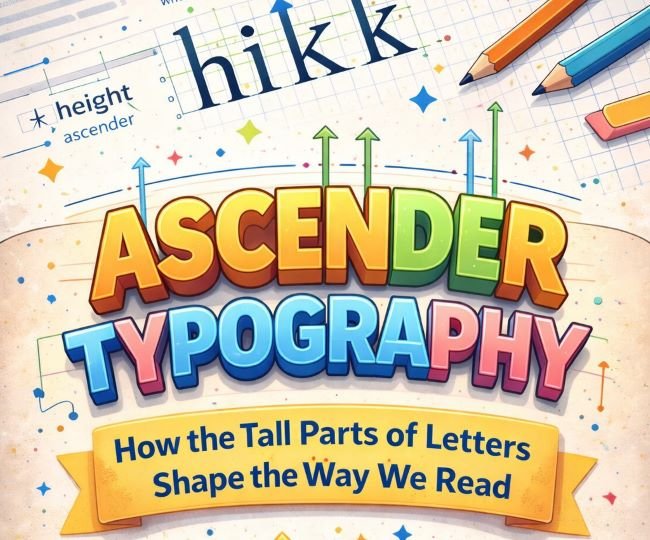
What Are Ascenders in Typography?
An ascender is the part of a lowercase letter that extends above the x-height. The x-height is the height of a typical lowercase letter with no extending strokes, using the letter “x” as the reference point since it sits squarely within the main body of the text.
Letters with ascenders include: b, d, f, h, i, j, k, l, and t. The strokes on these letters that reach upward past the x-height are the ascenders. In some typefaces, these strokes reach all the way to the cap height (the height of uppercase letters). In others, they go even higher.
That last point is worth pausing on. In many classic text typefaces, the ascenders on lowercase letters are actually taller than the capital letters. This is intentional. Designers do it because it creates a more natural, less mechanical rhythm in running text. When ascenders and capitals are the same height, the text can feel rigid and uniform. When ascenders are slightly taller, the text has more organic movement.
What Are Descenders in Typography?
Descenders are the counterpart to ascenders. Where ascenders reach up, descenders drop below the baseline. The baseline is the invisible line that letters sit on.
Letters with descenders include: g, j, p, q, and y. The strokes that hang below the baseline are the descenders. In some fonts the descenders are long and elegant; in others they’re cropped short to fit tighter line spacing.
Ascenders and descenders together give words their distinctive shapes. When you read, you don’t actually process each letter individually. You recognize the overall shape of a word as a unit. Ascenders and descenders contribute to that shape, which is part of why ALL CAPS text is harder to read in long passages. Capital letters don’t have descenders, and they rarely have ascenders, so the words become uniform rectangles with no distinguishing silhouette.
Ascender Height and X-Height: Why the Ratio Matters
The relationship between the ascender height and the x-height is one of the most important characteristics of any typeface. Different ratios produce very different reading experiences.
High x-height, short ascenders: The lowercase letters are large relative to the uppercase. This makes the font feel open and legible at small sizes, which is why many screen fonts are designed this way. The trade-off is that the text can feel a little flat or modern, lacking the classical elegance of fonts with taller ascenders.
Low x-height, tall ascenders: The lowercase letters are smaller relative to the line height, and the ascenders stretch significantly. This creates a more graceful, literary feel. Many traditional book typefaces and serif fonts designed for print fall into this category. They can be harder to read at very small sizes but feel authoritative and refined at body text sizes and above.
Balanced ratio: Most workhorse text fonts land somewhere in the middle, with an x-height and ascender height designed to handle a wide range of uses without pushing too far in either direction.
When you’re choosing a font, look at how the ascenders and x-height relate. A quick way to judge this is to set a word like “happening” which contains both ascenders and descenders, and see how the letters interact with each other and with the space around them.
How Ascenders Affect Line Spacing
Ascenders and descenders directly influence how much line spacing (leading) a typeface needs.
A font with very long ascenders and descenders needs more vertical space between lines. If the descenders of one line come too close to the ascenders of the line below, the text feels cramped and the strokes can visually collide. A font with short ascenders and descenders can sit more tightly without that problem.
This is one reason you can’t just copy a line spacing value from one font and apply it to another. Each typeface has its own proportions, and what works for one will often look wrong on another.
If you’re setting body text in a font with generous ascenders and you notice that your line spacing feels off even at standard values, try increasing the leading slightly. The ascending strokes need room above them to breathe, not just the cap height.
Ascenders and Descenders in Font Pairing
When you pair two fonts, their ascender heights and x-heights need to be considered, not just their visual style.
Two fonts with very different x-heights will look mismatched at the same point size, even if they share a similar aesthetic. One will look large and dominant while the other looks small and secondary. This is sometimes intentional in display pairings, but in body text contexts it usually creates inconsistency.
A useful pairing strategy is to find fonts whose x-heights are similar, then let the ascender differences add visual interest. This gives the pairing coherence at the word level while the different ascender treatments contribute personality.
For example, a serif body font with tall, elegant ascenders can pair well with a sans-serif heading font that has a higher x-height, because the difference in proportions creates contrast between the heading and body roles while both still feel balanced on the page.
If you’re working on a project that calls for a typeface with distinctive ascender character, Lobster is a strong example of a font where the ascenders are a major part of its personality. The sweeping strokes that extend above the x-height give it its signature look.
Descender Typography in Practice
Descender typography, like ascender decisions, comes up in practical situations more often than you’d expect.
Logo and wordmark design: Descenders in a logo can extend below the baseline of the containing shape, which creates alignment decisions. Some designers clip the descenders to fit a geometric constraint; others let them hang free as a feature. Either approach can work, but it needs to be deliberate.
Tables and tight layouts: In data-heavy contexts like tables, the descenders on letters like “g” and “y” can create visual clutter if the line spacing is too tight. Bumping up the row height slightly so descenders have room is a small adjustment that makes a table much easier to scan.
All-caps settings: When you set text in all capitals, the descenders disappear along with the ascenders. This changes the line spacing needs because the tall vertical range of mixed-case text is gone. All-caps text can often sit at tighter line spacing without feeling cramped, precisely because ascenders and descenders are no longer competing for space.
Reversed-out text: Light text on dark backgrounds tends to look better with fonts that have moderate ascender and descender lengths. Very long extending strokes can look fragile or create optical noise against a dark field.
Choosing Fonts Based on Ascender and Descender Characteristics
When you’re evaluating a font for a project, here’s a practical checklist based on ascender and descender behavior:
- Set a test paragraph with letters that include ascenders (h, l, k) and descenders (g, p, y) and look at how they interact with surrounding lines.
- Check whether the ascenders overshoot the cap height, and decide whether that elegance fits your project or feels out of place.
- If the font will be used at small sizes on screen, favor a higher x-height even if it means shorter ascenders.
- If the font is for editorial or long-form print use, longer ascenders and a lower x-height will often give the text a more refined feel.
- In tight layouts (tables, captions, UI labels), look for fonts with controlled descender length so the strokes don’t create spacing problems.
A typeface like Baloo 2 is a good example of a font with a high x-height and contained ascenders, making it well-suited to UI and screen use where clarity at smaller sizes matters more than classical proportion.
Key Takeaways
- Ascenders are the parts of lowercase letters that extend above the x-height. Common ascender letters include b, d, h, k, l, and t.
- Descenders are the strokes that drop below the baseline, found in letters like g, j, p, q, and y.
- The ratio of ascender height to x-height shapes a typeface’s personality: tall ascenders read as elegant and literary; high x-heights with short ascenders read as open and screen-friendly.
- Ascenders and descenders affect line spacing needs. Fonts with long extending strokes need more leading.
- In font pairing, matching or deliberately contrasting x-heights is more important than most designers realize.
- Practical situations where ascender and descender decisions matter include logos, tables, all-caps settings, and reversed-out text.
Ascenders are easy to overlook when you’re caught up in choosing a font based on style or mood. But once you start seeing how they affect the vertical rhythm, legibility, and spacing of text, you’ll check for them every time.